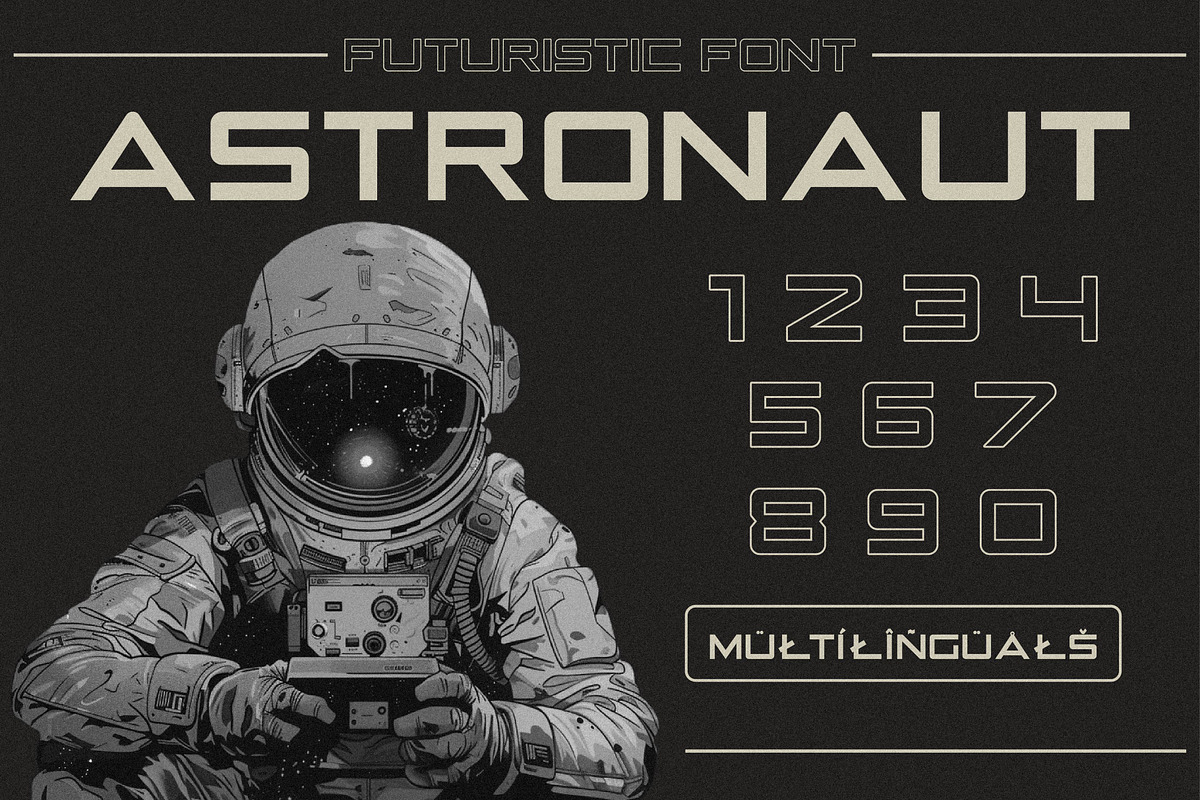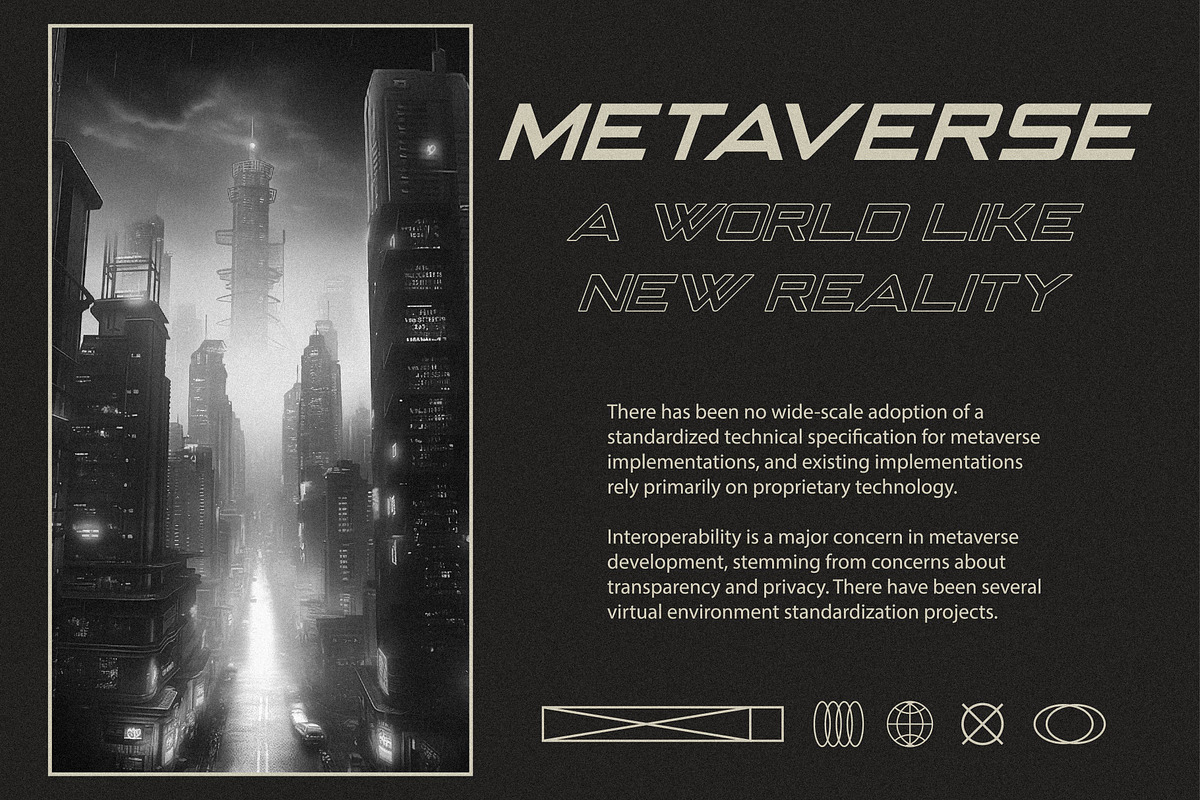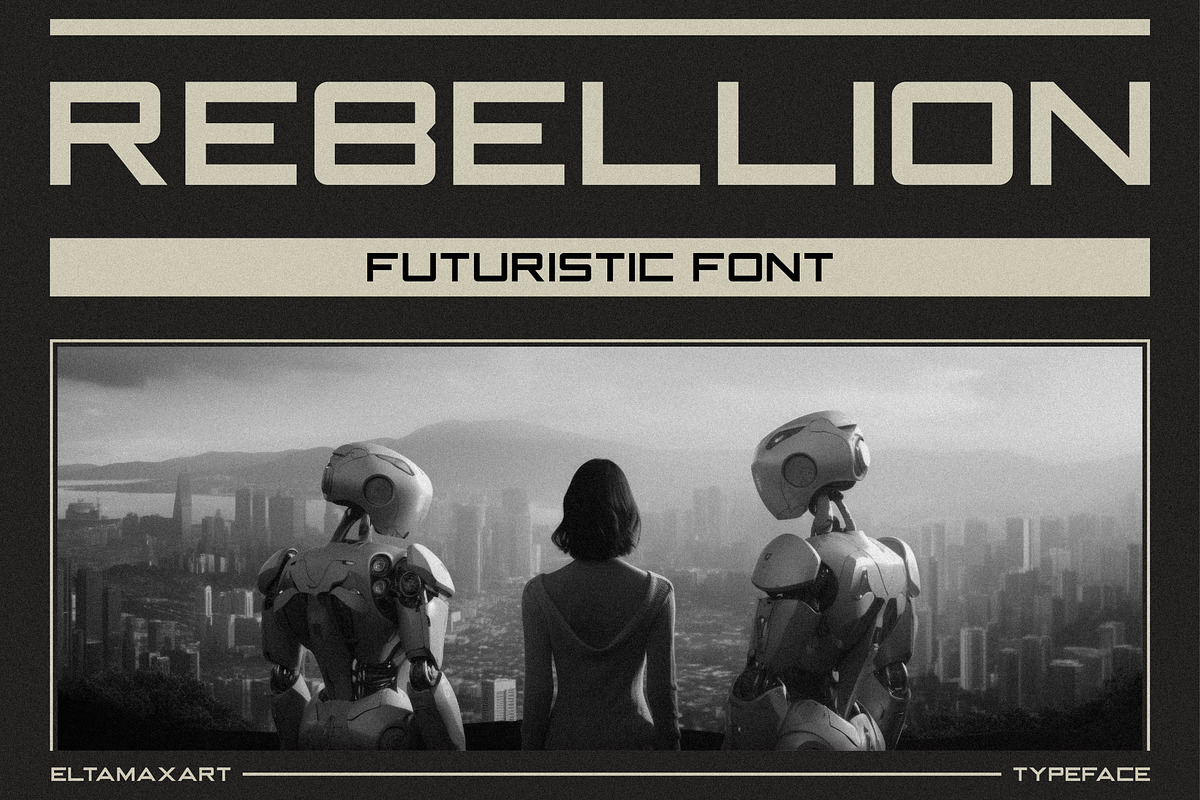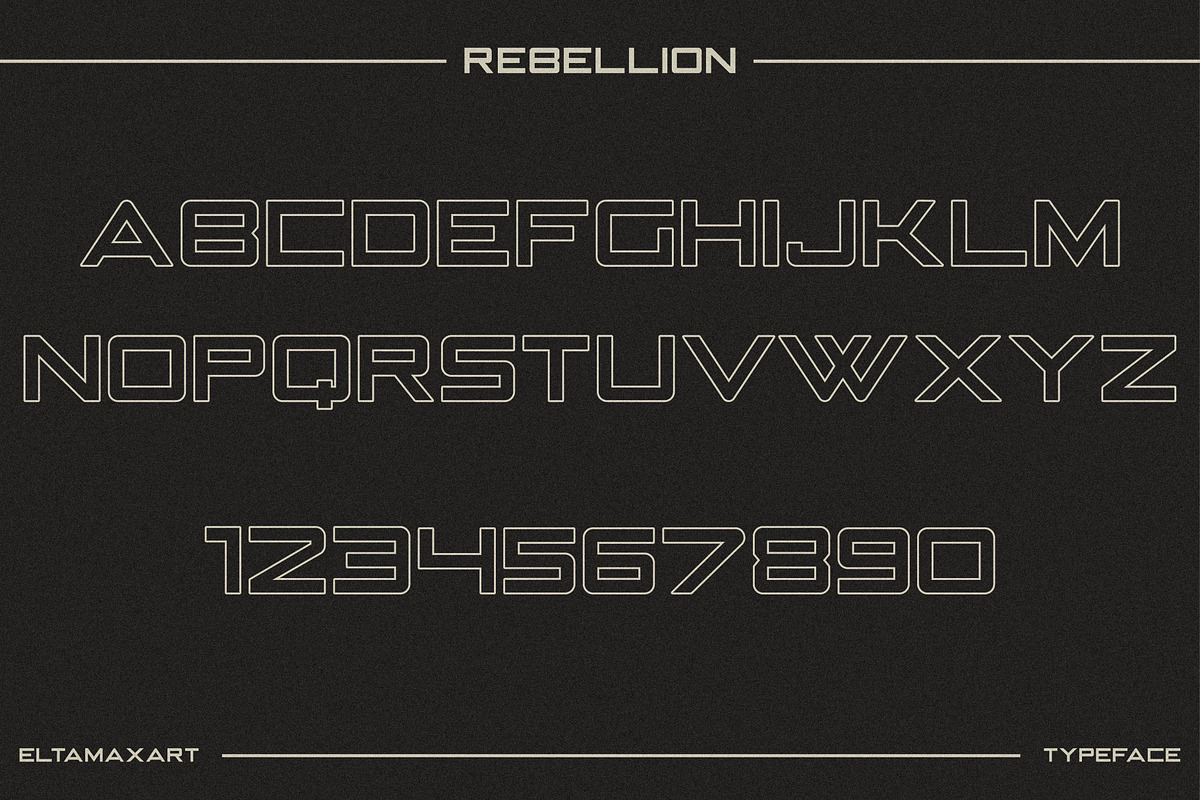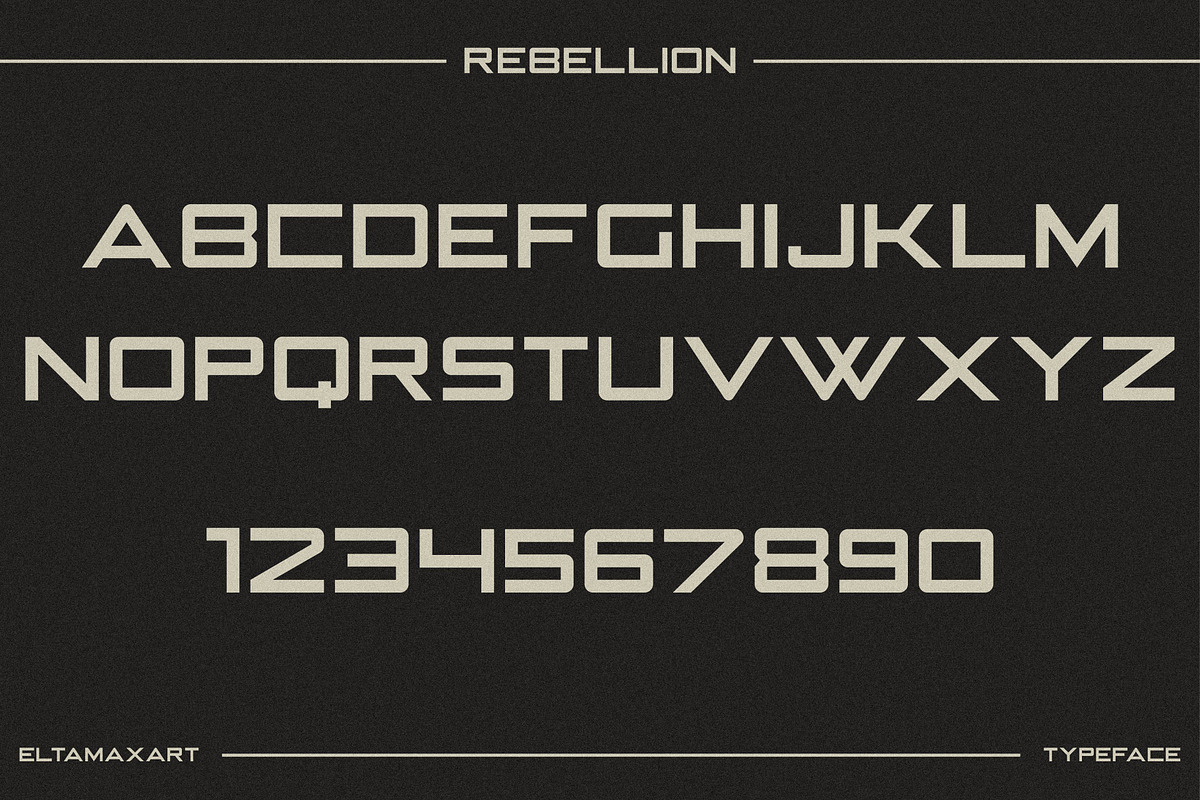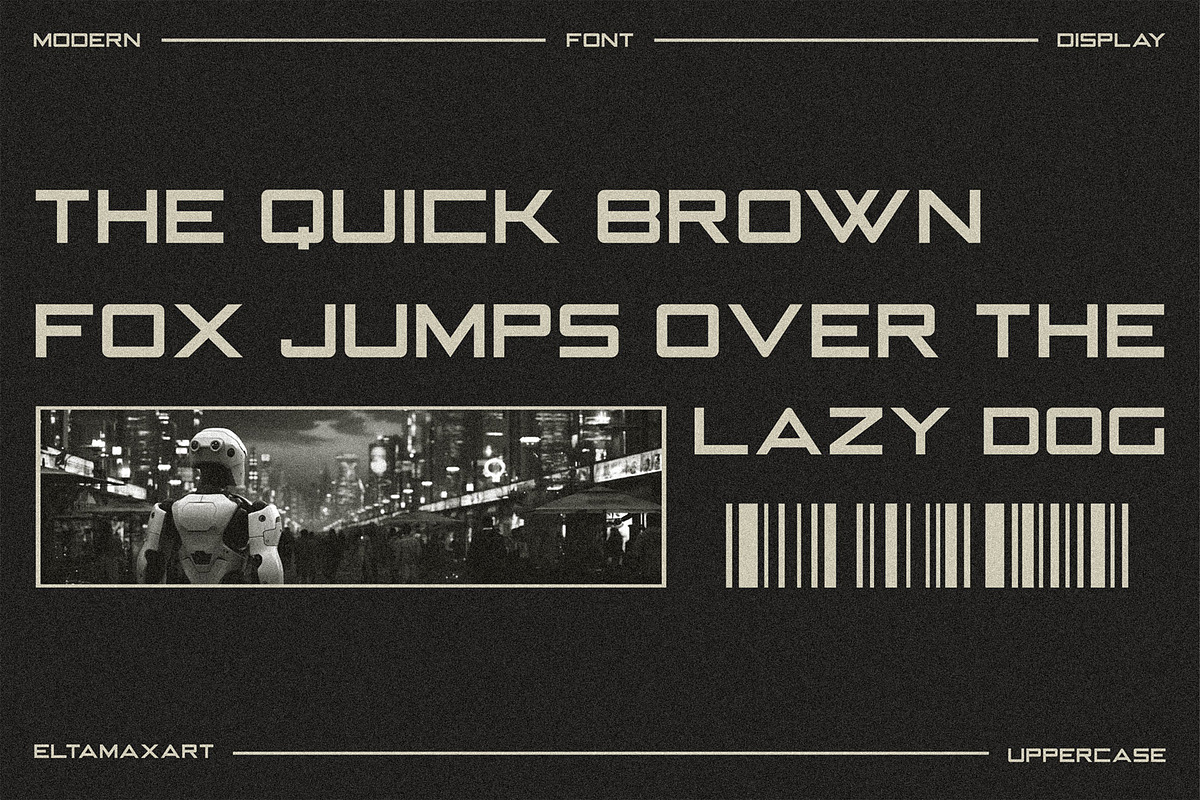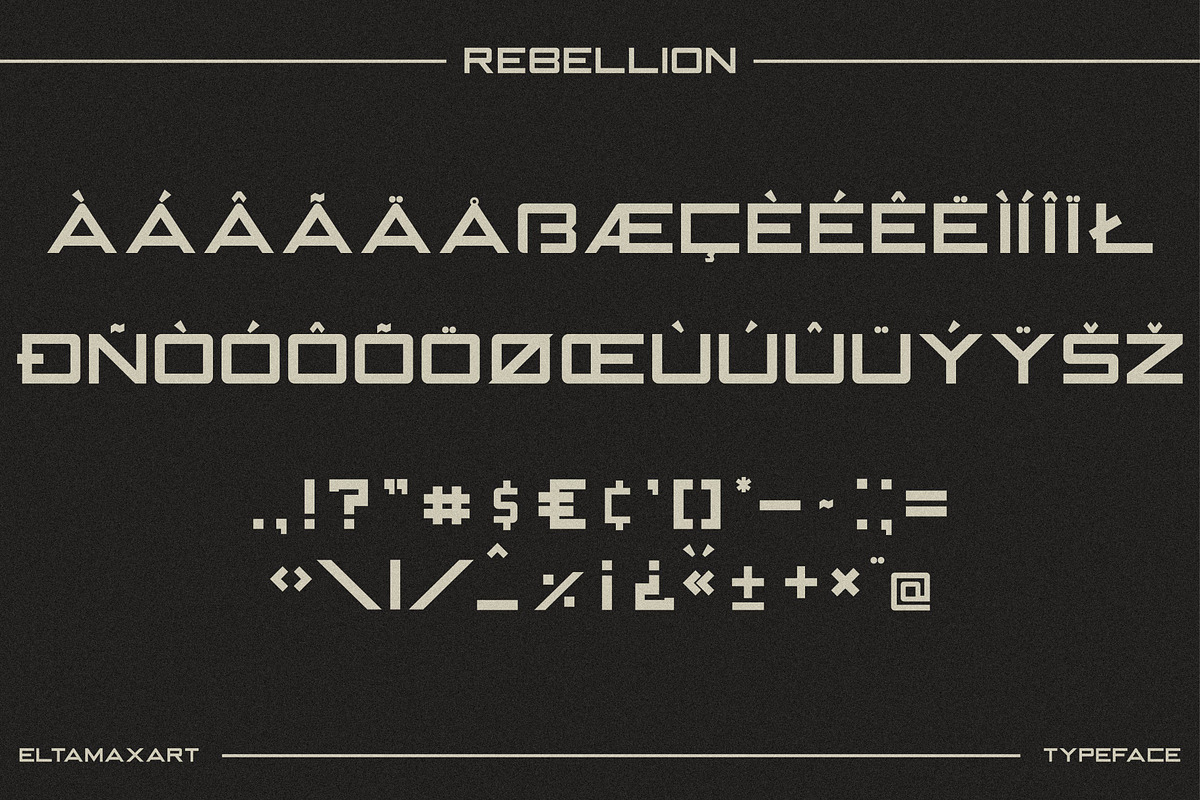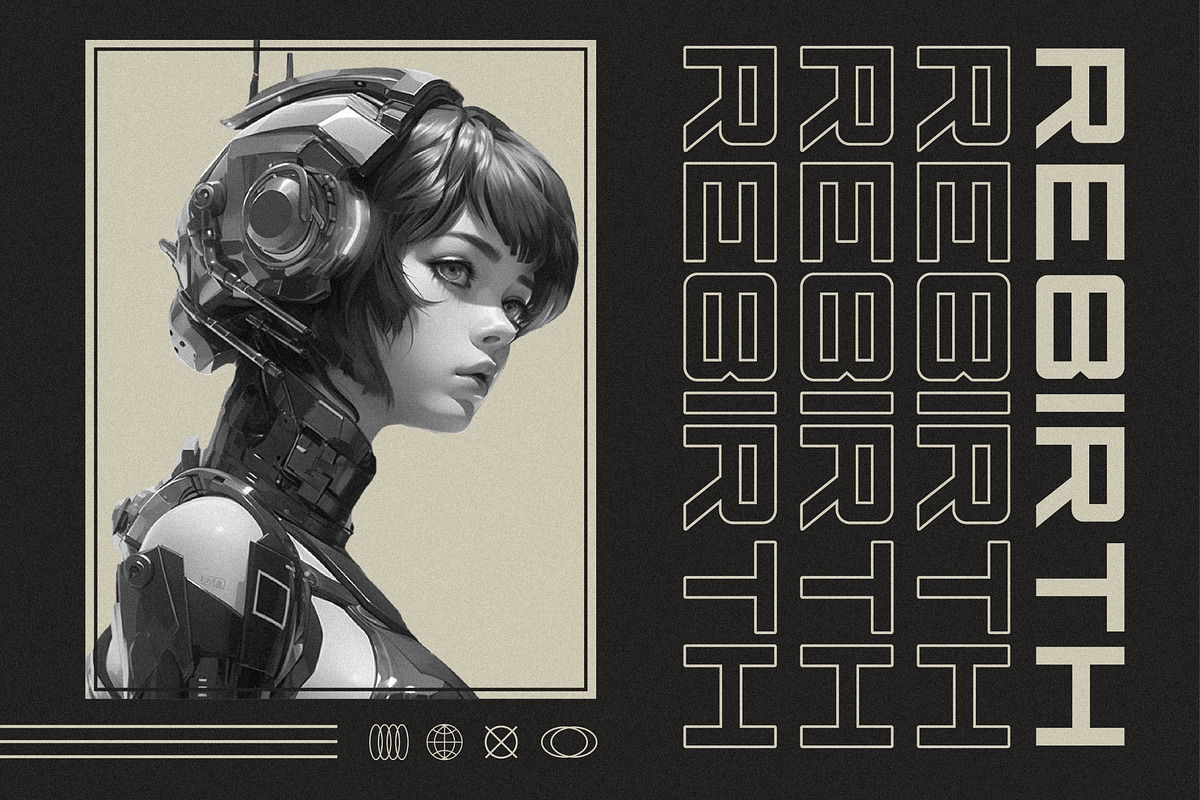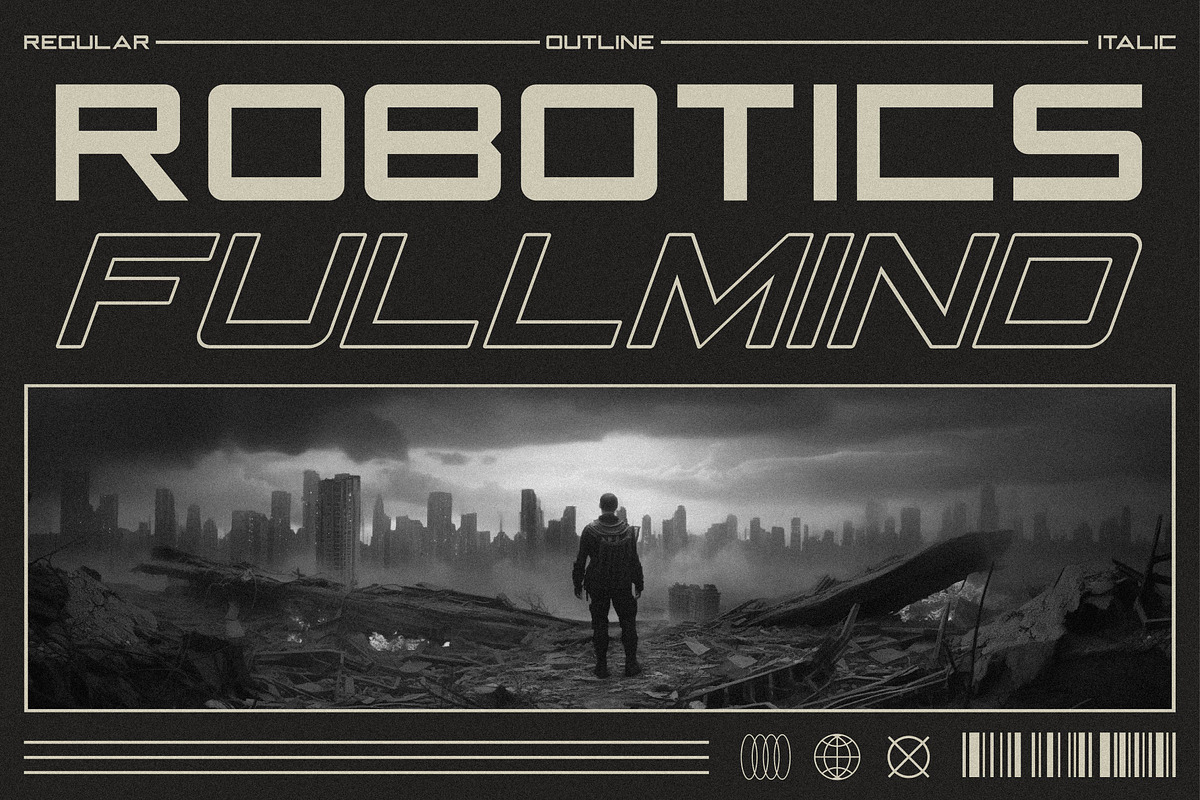
Rebellion Futuristic Font
Rebellion is a modern type family of 4 typefaces.
The Rebellion type family will perfect for many project: invitations, game poster, music cover, poster, quotes, blog header, t-shirt, etc.